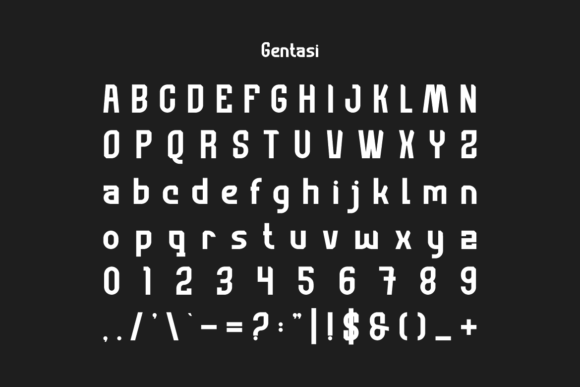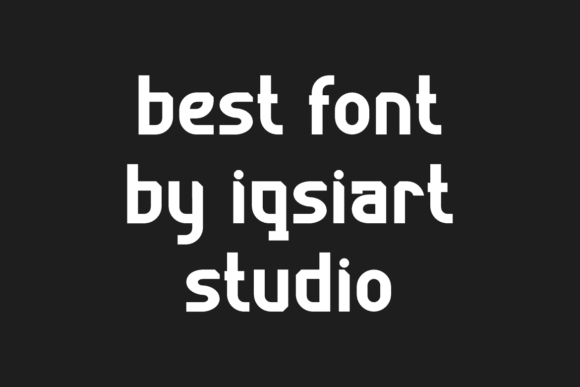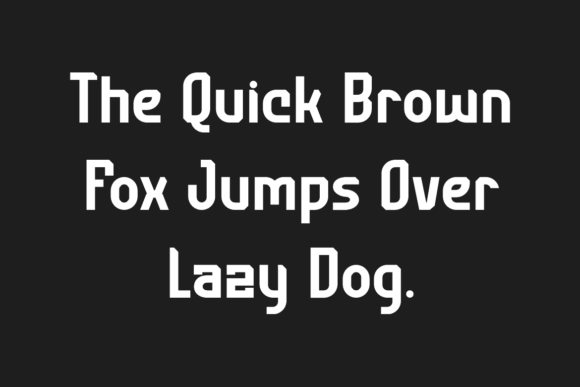
Introduction to Gentasi Font
Have you ever been working on a creative project, pouring your heart and soul into it, only to feel like something’s missing? You’ve crafted a stunning design, but it’s just not standing out like you want it to? That’s where the right font comes in – a game-changer that can elevate your entire creation and make it truly unforgettable. For designers, finding that perfect font can be a challenge, but we’re excited to introduce you to a new design resource that’s about to revolutionize your work: the Gentasi Font.
With its bold and assertive sans serif design, the Gentasi Font is a high-quality addition to any library. Whether you’re working on a logo, a brochure, or a website, this font has the potential to take your project to the next level. And the best part? It’s available for free download, giving you the flexibility to experiment and find the perfect combination for your unique vision.
Key Features of Gentasi Font
- High-Quality Typography – Gentasi Font offers a unique blend of elegance and sophistication, making it an ideal choice for creative projects that demand a high level of design sophistication.
- Transparent Background Option – This feature allows designers to easily integrate the Gentasi Font into their design work, providing a seamless and professional look.
- High Resolution and Scalability – Gentasi Font is designed to be highly scalable, ensuring that it retains its quality and clarity at various resolutions and sizes.
- Perfect for Design and Creative Projects – Gentasi Font is an ideal choice for designers working on creative projects that require a high level of typography and design sophistication.
Honest Review: Gentasi Font
I recently stumbled upon the Gentasi Font and I must say it’s been a game-changer for my creative projects. This font is a valuable design resource that adds a touch of elegance and sophistication to any design.
One of the things I love about the Gentasi Font is its high quality and versatility. It comes in a range of weights and styles, making it perfect for various design applications. ✨ The font is also available for free download, which is a huge bonus for designers on a budget.
The Gentasi Font is also incredibly easy to use, with a transparent background that makes it simple to customize and integrate into any design. ✨ Whether you’re working on a logo, brochure, or website, this font is sure to elevate your design to the next level.
- High quality and versatility
- May not be suitable for very large-scale projects
- Some users may find the font too elegant for certain design applications
Overall, I’m thoroughly impressed with the Gentasi Font. It’s a valuable addition to any designer’s toolkit and I highly recommend it for any creative project.
The Gentasi Font is perfect for creating invitations, business cards, and other marketing materials. It’s also great for designing websites, social media graphics, and other digital content. With its high-quality design and transparent background, the Gentasi Font is a valuable design resource for any creative project.